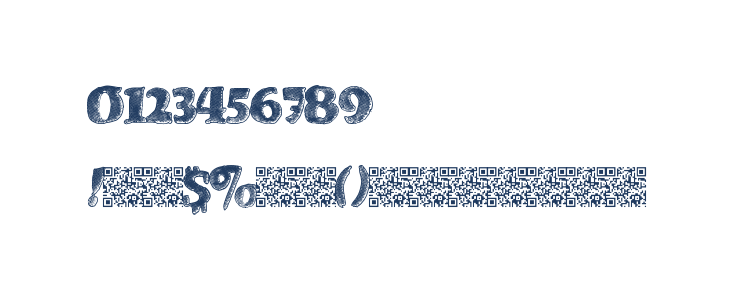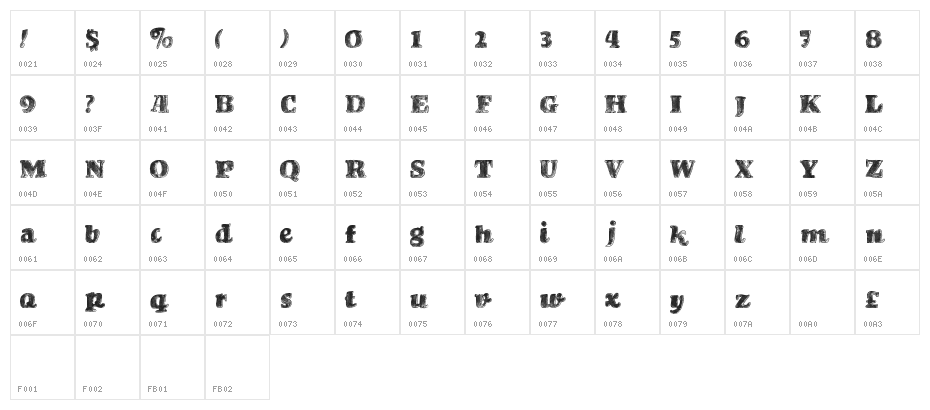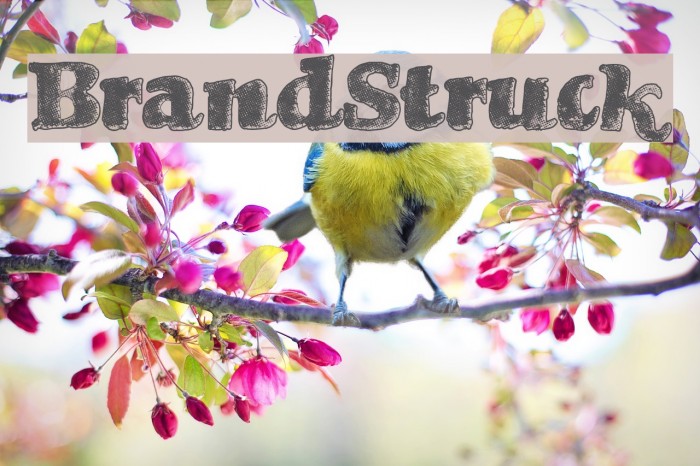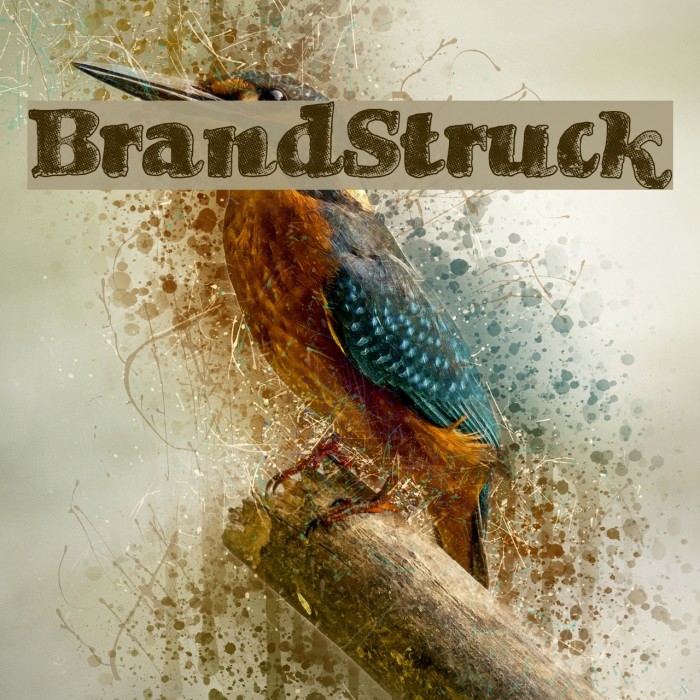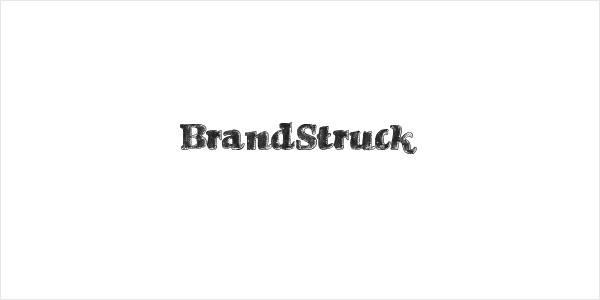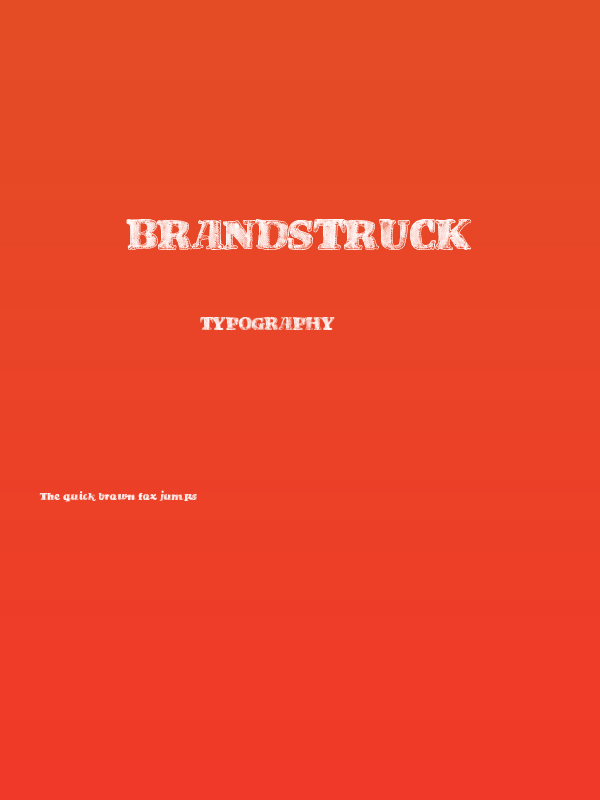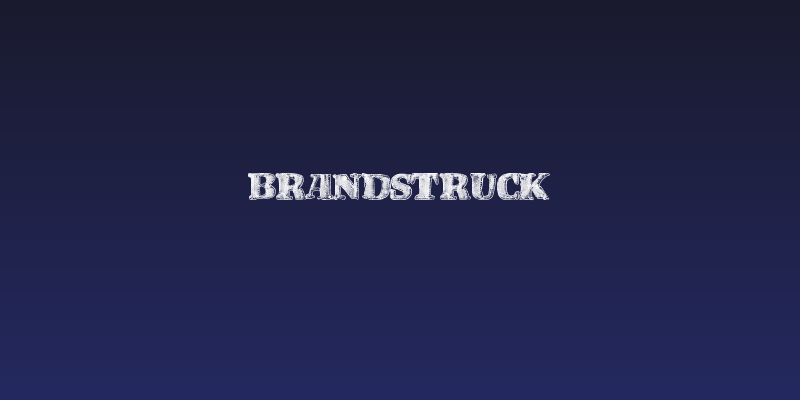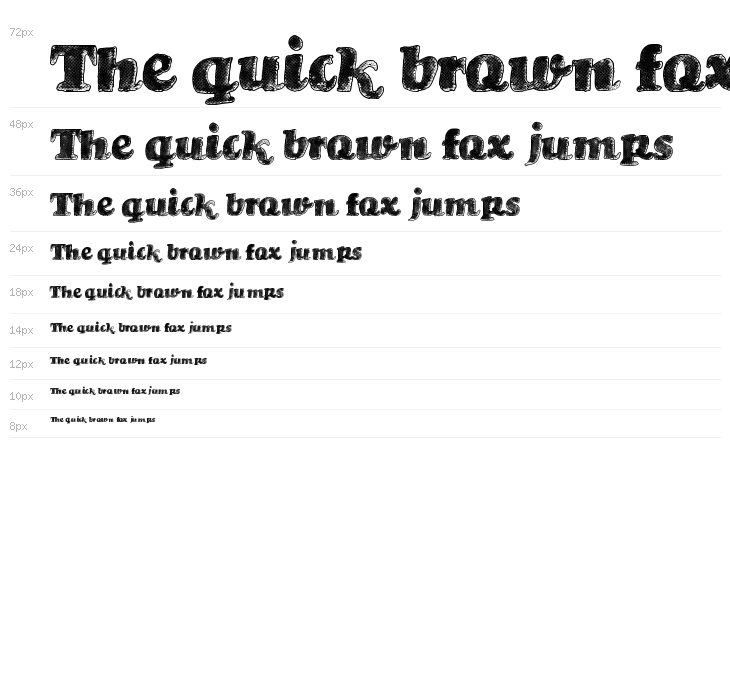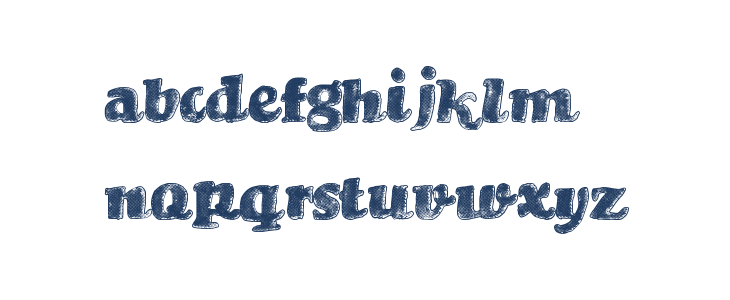
BrandStruck Font
BrandStruck Description
This font features a bold and textured design, reminiscent of vintage printing techniques. Each character is filled with a stippled pattern, giving it a unique, distressed appearance. The uppercase letters are robust and commanding, while the lowercase letters maintain a consistent style, offering a cohesive look across the alphabet. The numerals and special characters follow the same textured pattern, ensuring uniformity throughout. This font's distinctive style makes it ideal for projects that require a touch of nostalgia or a handcrafted feel.
| Proposed Projects | Ideal for vintage-themed posters, retro branding, and artisanal product packaging. |